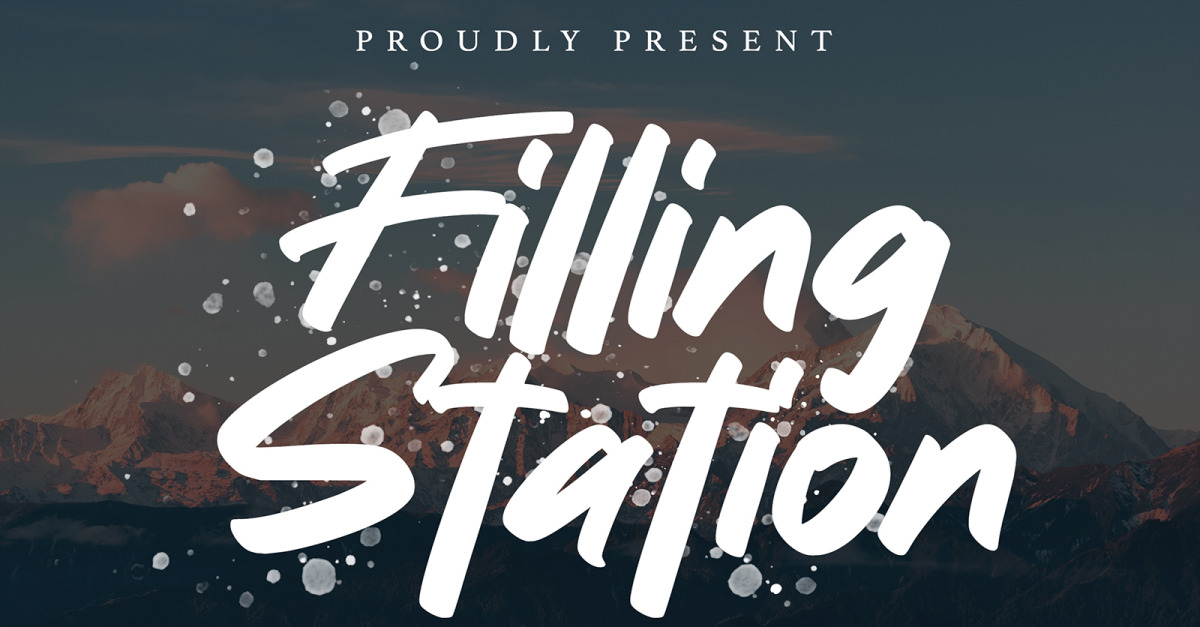
Filling Station | Marker Font
**Filling station | Marker Font** with a calligraphy style, So beautiful on invitation like greeting cards, branding materials, business cards, quotes, posters, and more!